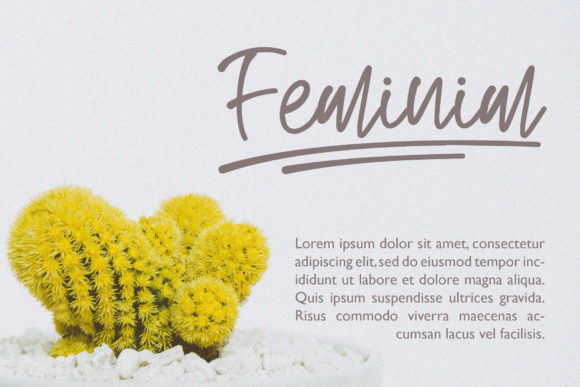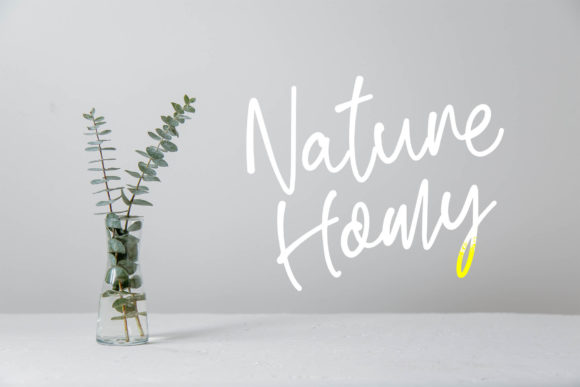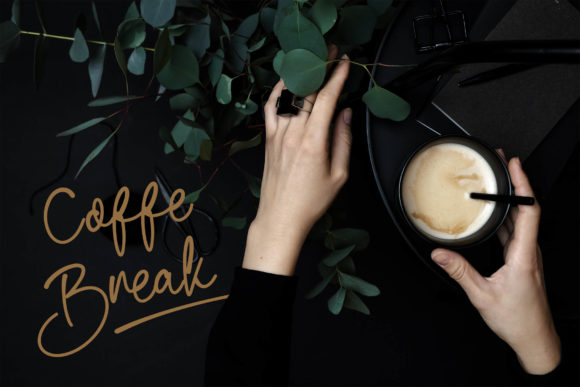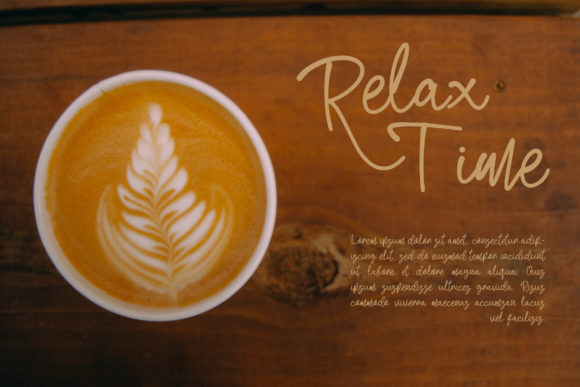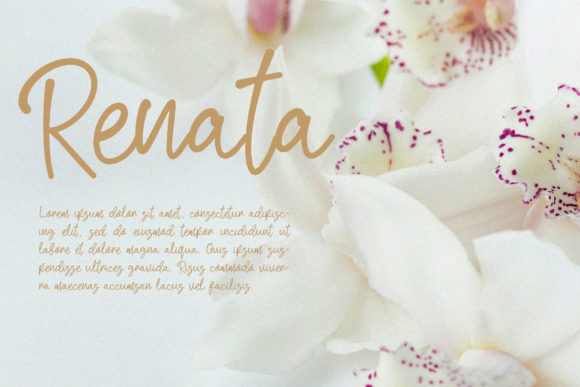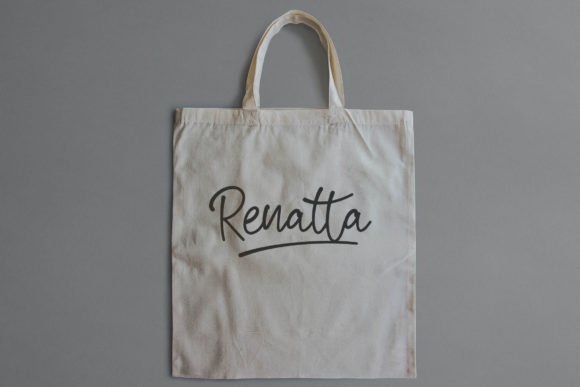
Introduction to Renatta Script Font
Have you ever been working on a creative project and felt like something’s missing – a special touch that elevates your design from good to great? I know I have. As a designer, I’ve often found myself searching for the perfect font to give my projects that extra oomph. And then, I stumbled upon the beautiful Renatta Script Font.
This stunning script font is a game-changer for any designer looking to add a touch of elegance and sophistication to their work. With its smooth curves and vintage flair, Renatta Script Font is perfect for fashion branding or editorial designs. Whether you’re working on a high-end fashion campaign or a stylish blog, this font is sure to impress.
One of the best things about Renatta Script Font is that it’s PUA encoded, making it easy to access all of the glyphs and swashes. This means you can customize your design to perfection, without any hassle. Plus, with its high-quality design and transparent background, you can be sure that your project will look professional and polished.
Key Features of Renatta Script Font
- High-quality design resource ideal for creative projects, offering a beautiful and elegant touch.
- Unique and delicate script font style, perfect for adding a touch of sophistication and elegance to any design project.
Honest Review: Renatta Script Font
As a designer, I’m always on the lookout for high-quality design resources that can elevate my creative projects. Recently, I had the chance to work with the Renatta Script Font, and I must say, it’s a great addition to any design arsenal.
Here are some things that work well with the Renatta Script Font:
- ✨ Elegant and refined aesthetic that adds a touch of sophistication to any design.
- ✨ Highly versatile, making it suitable for a wide range of creative projects, from branding and packaging to digital products and print materials.
- ⚠️ The font may not be ideal for bold or large text, as it can become difficult to read at larger sizes.
- ⚠️ The font’s intricate design may not be suitable for designs that require a lot of bold or italic text.
Overall, I’m impressed with the Renatta Script Font’s high quality and versatility. While it may have a few limitations, it’s a great resource for designers looking to add a touch of elegance to their creative projects.
Renatta Script Font: A Comprehensive Guide
Tips for Getting the Most Out of Renatta Script Font
To get the most out of the Renatta Script Font, use it sparingly and strategically to add a touch of elegance and sophistication to your designs. Experiment with different font sizes, colors, and combinations to create unique and eye-catching effects.
Common Use Cases for Renatta Script Font